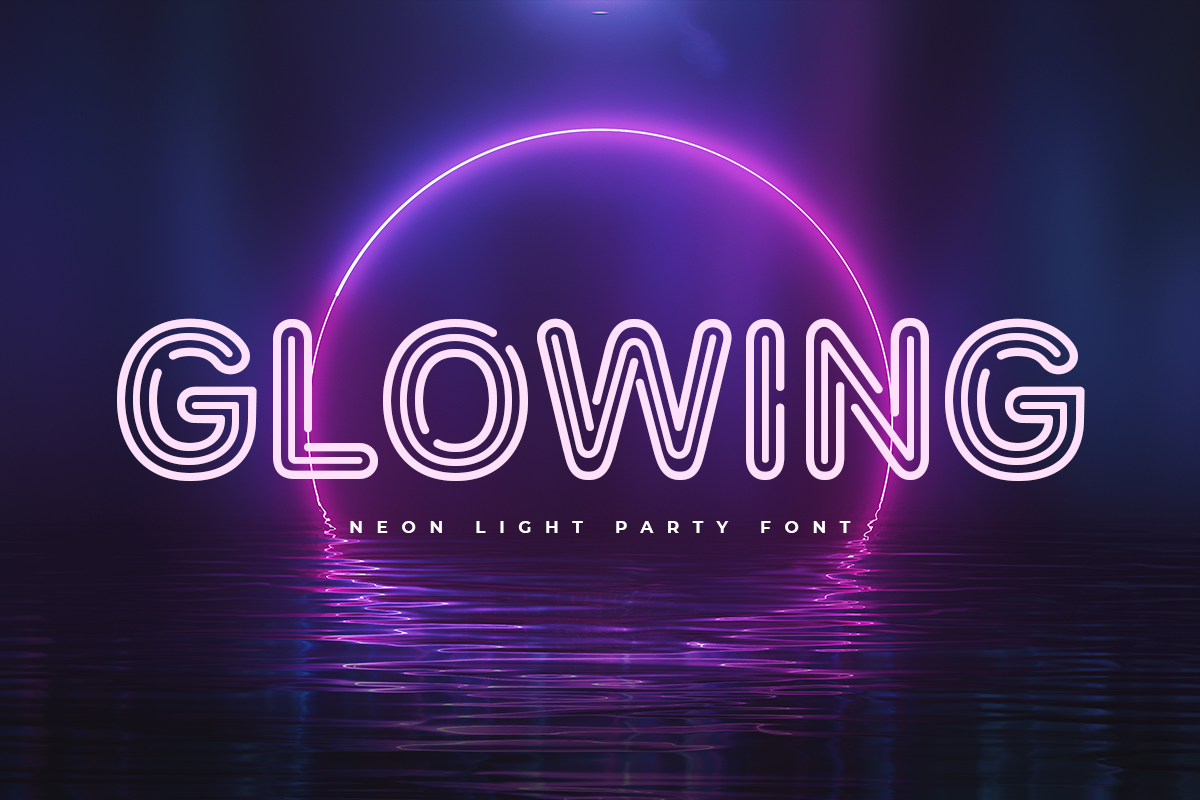
GLOWING - Neon Light Party Font
Electrify your designs with GLOWING - the ultimate neon light party font that commands attention. This striking display typeface features a distinctive inline shape that brings a unique and modern edge to your creative projects. GLOWING was specially crafted for headlines, titles, and any typography that needs to make a bold statement and showcase your main concept with style. The font combines contemporary design with vibrant neon aesthetics, making it perfect for projects that demand a standou...